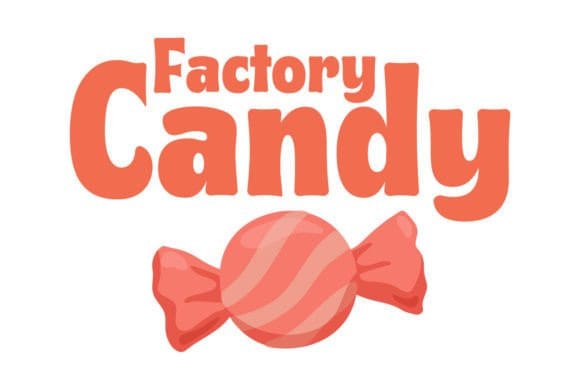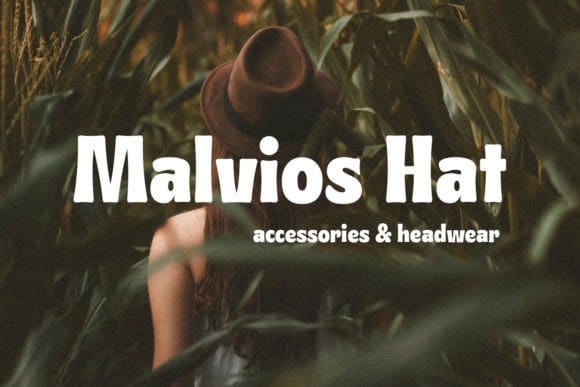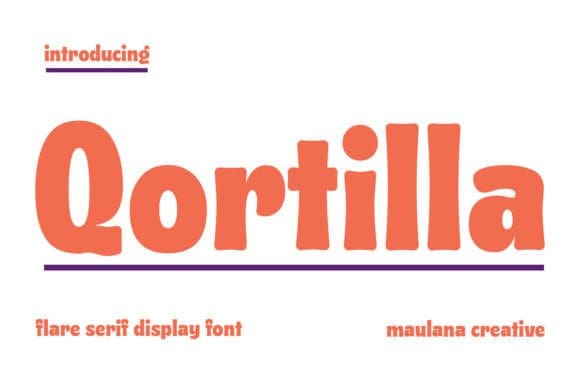
Qortilla Display Font
Qortilla Display Font is a bold and playful font. It’s perfect for creating catchy headlines, posters, and social media graphics that evoke a sense of nostalgia.